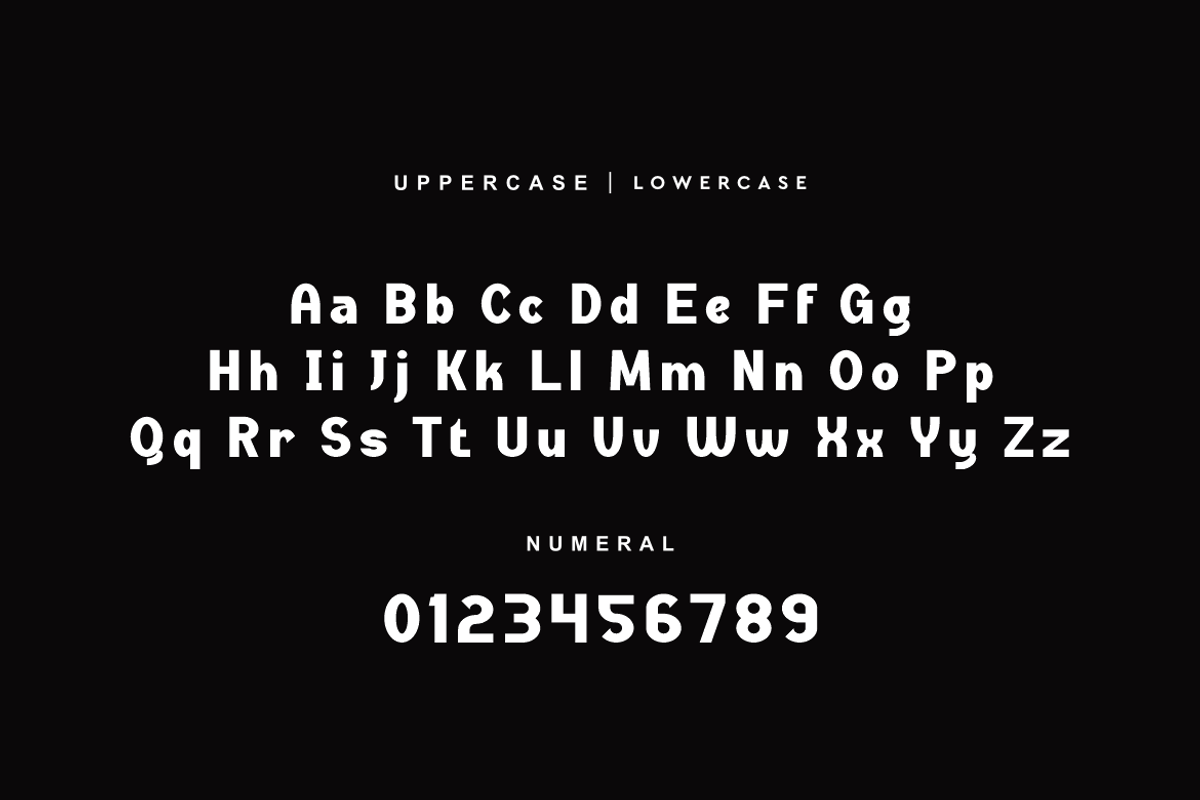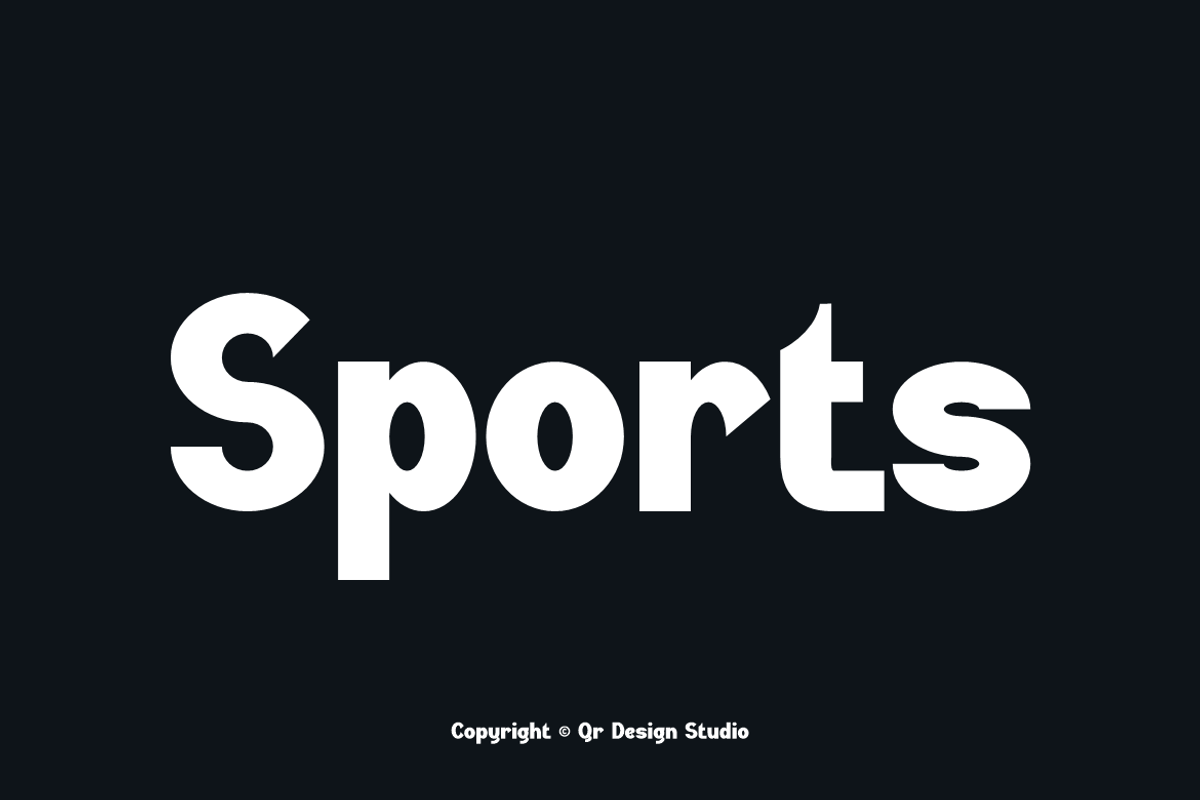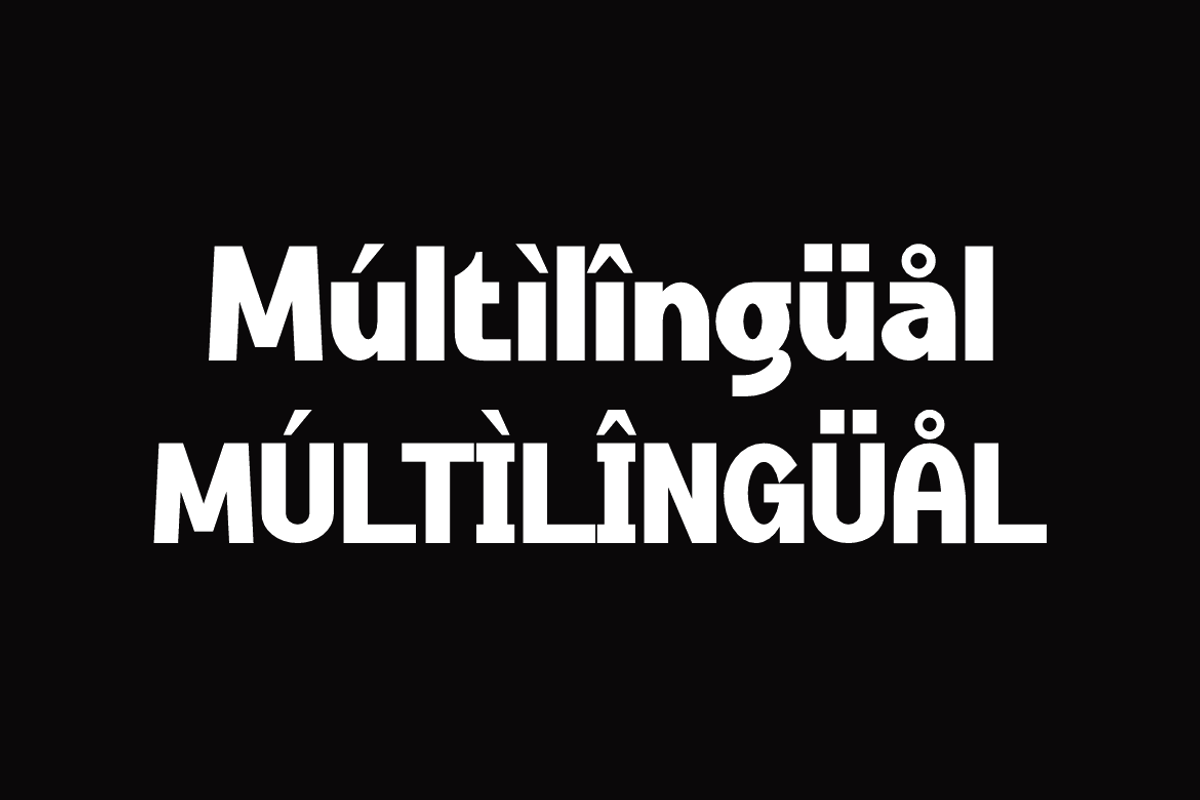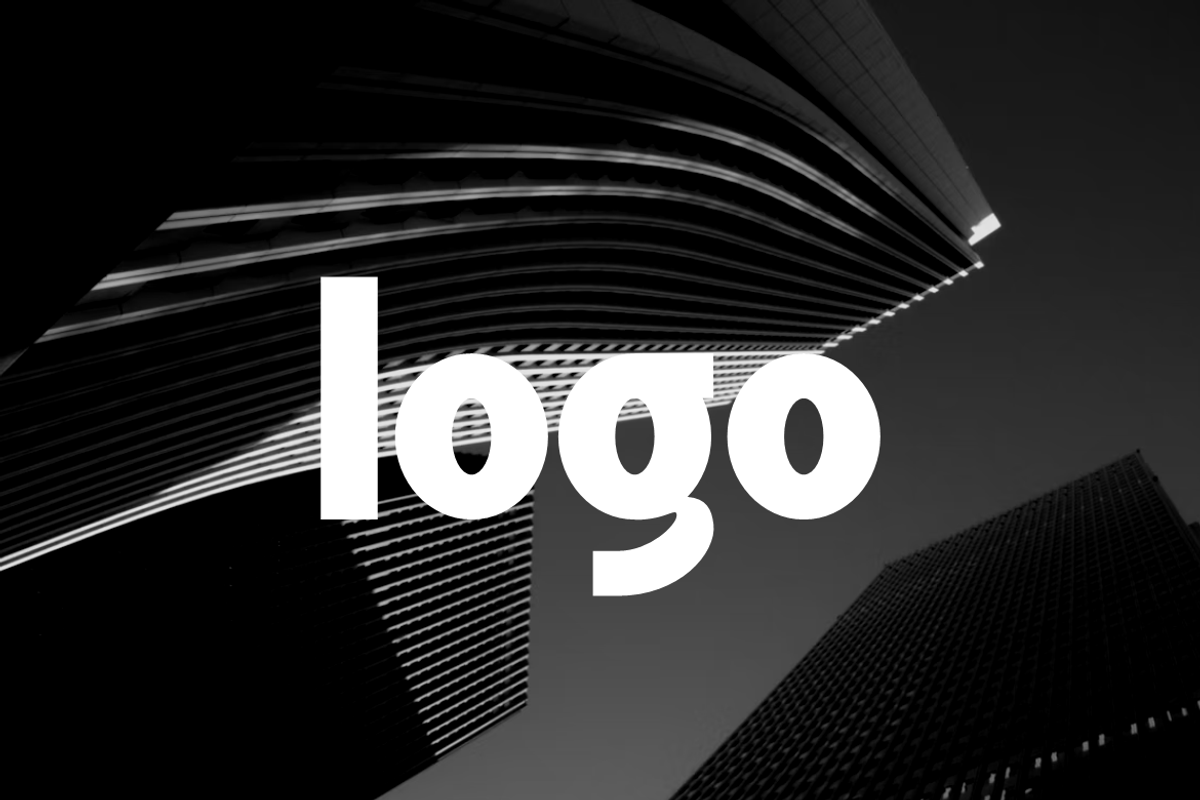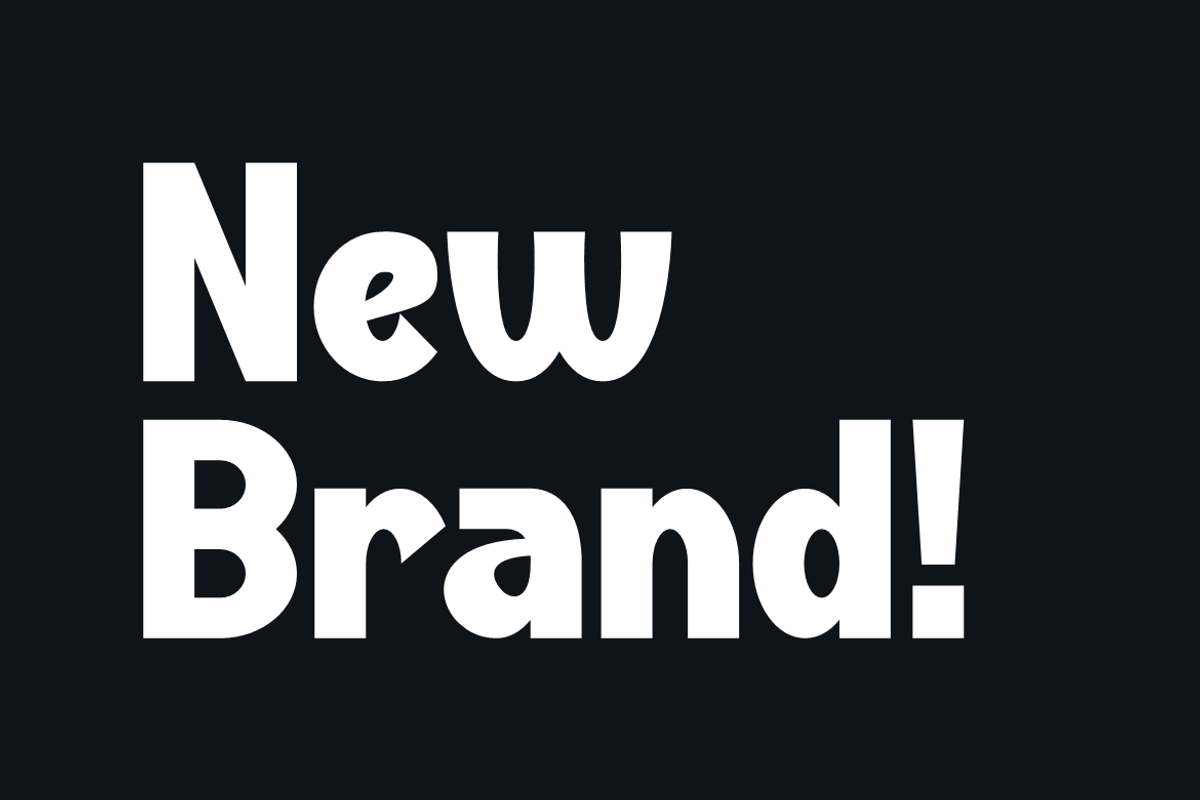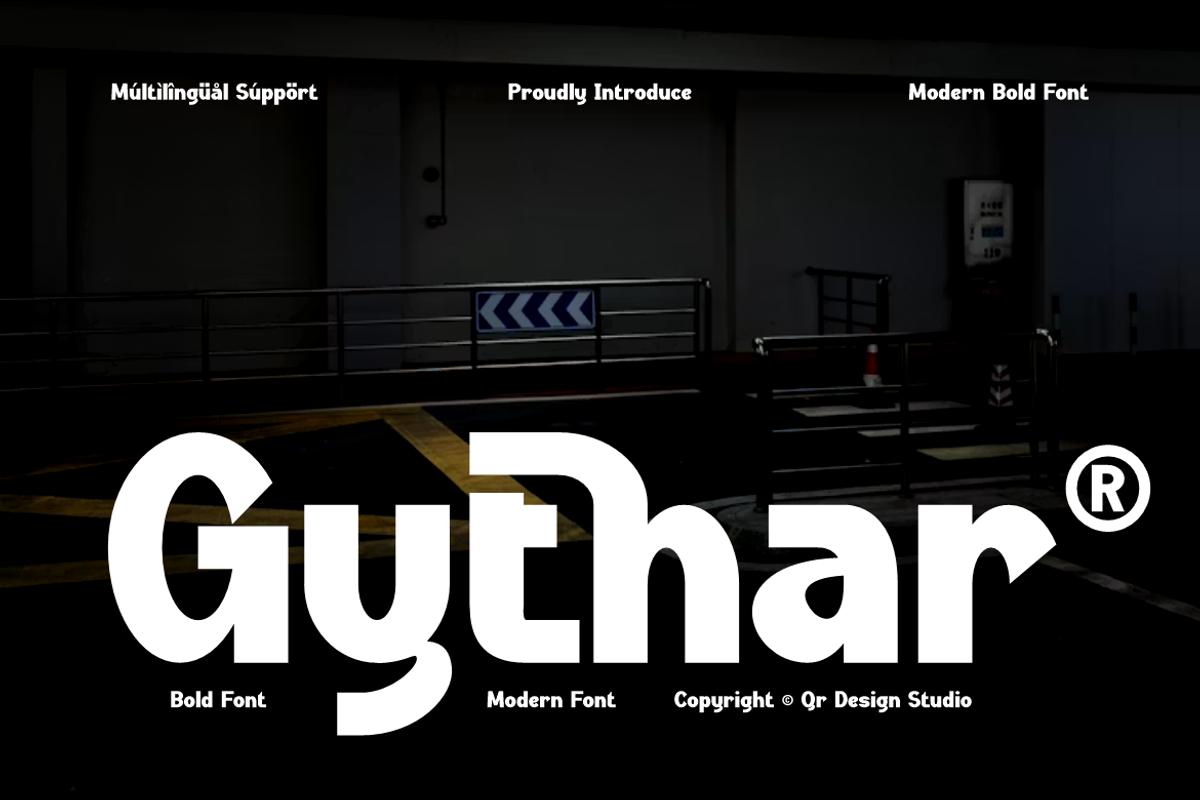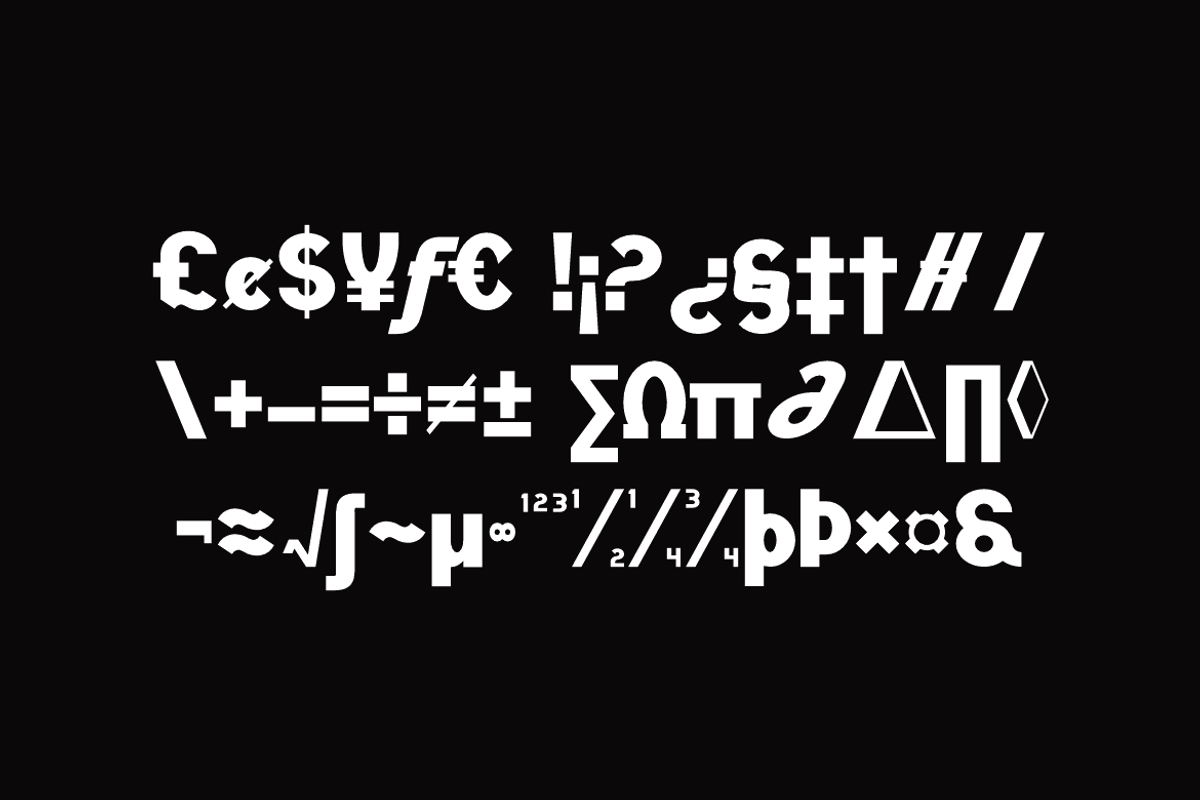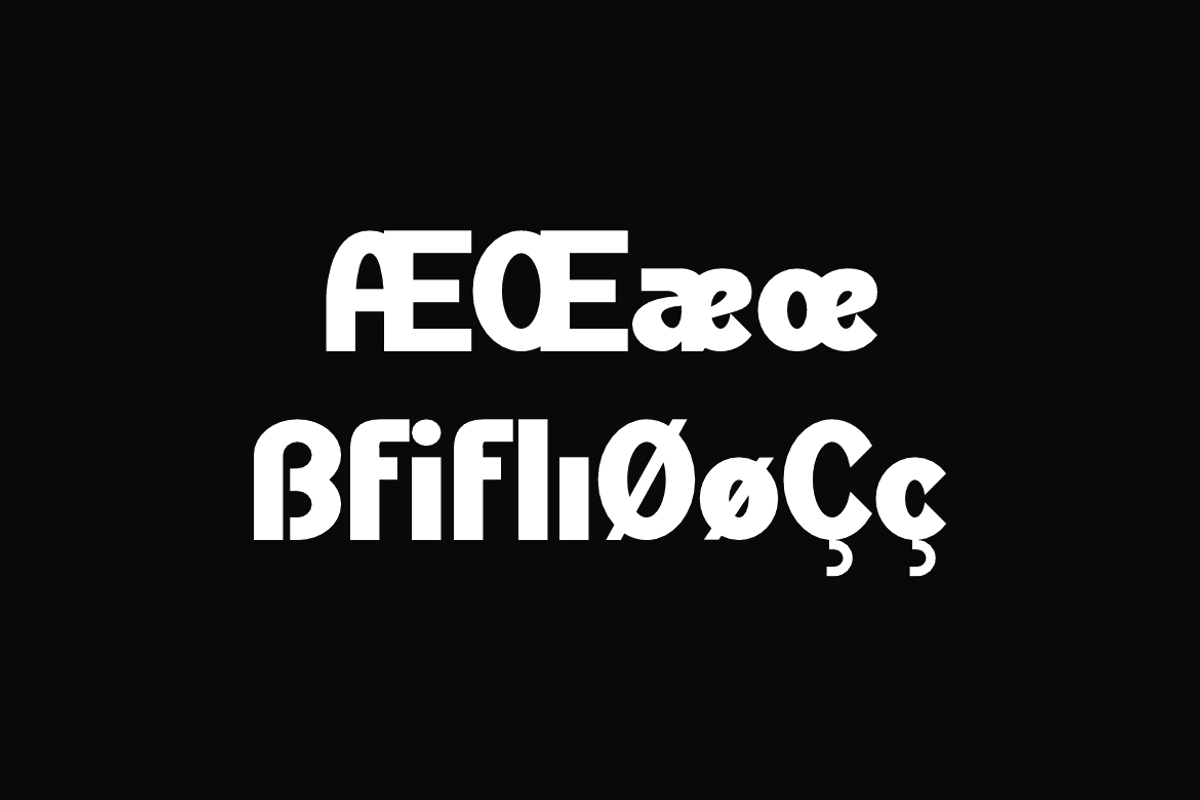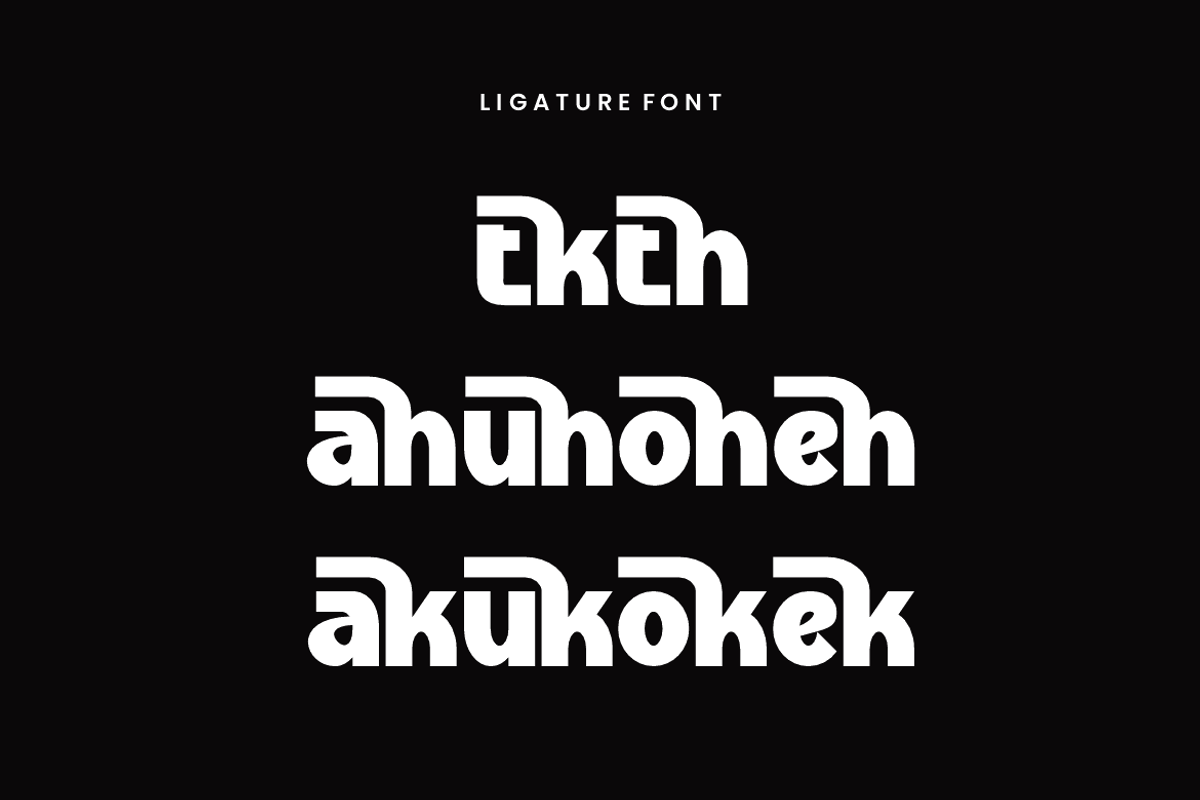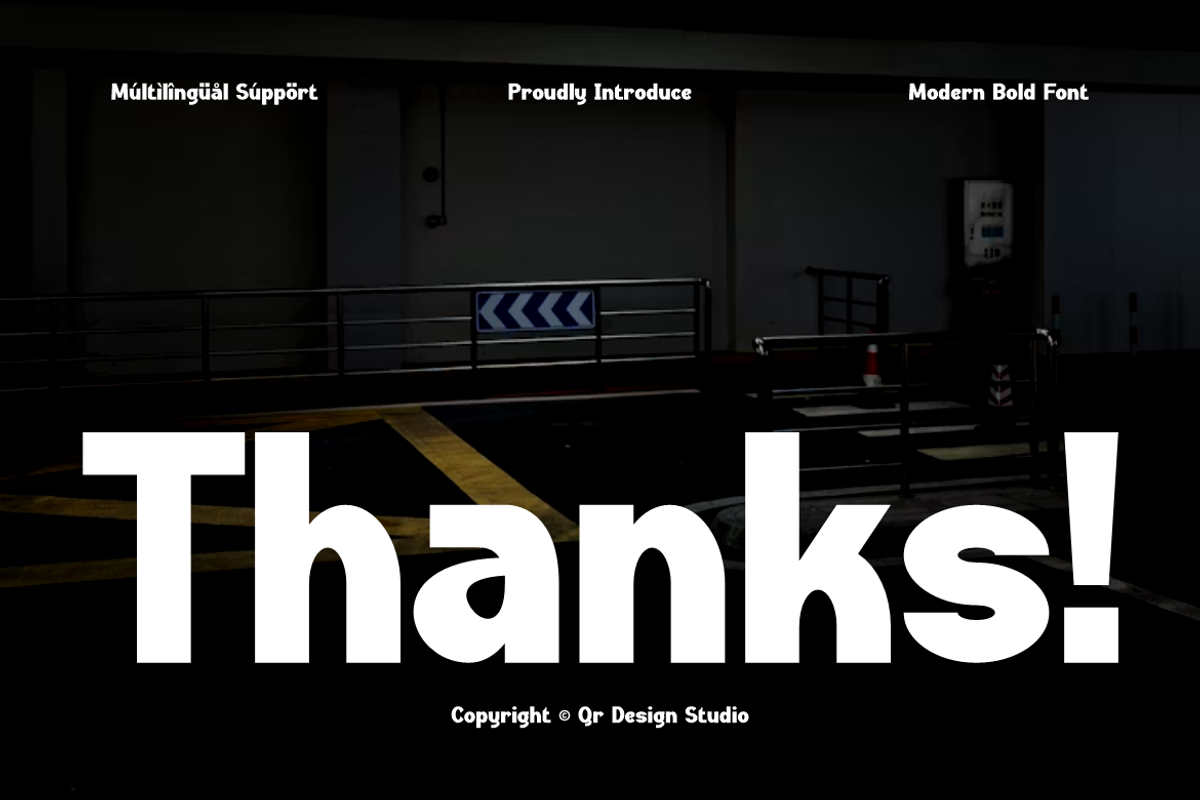
Gythar - Modern Bold Font
Gythar Font is a bold and authentic display typeface.
It’s perfect for various branding projects such as logos, modern designs,
and more. This font stands out beautifully in a wide range of contexts.